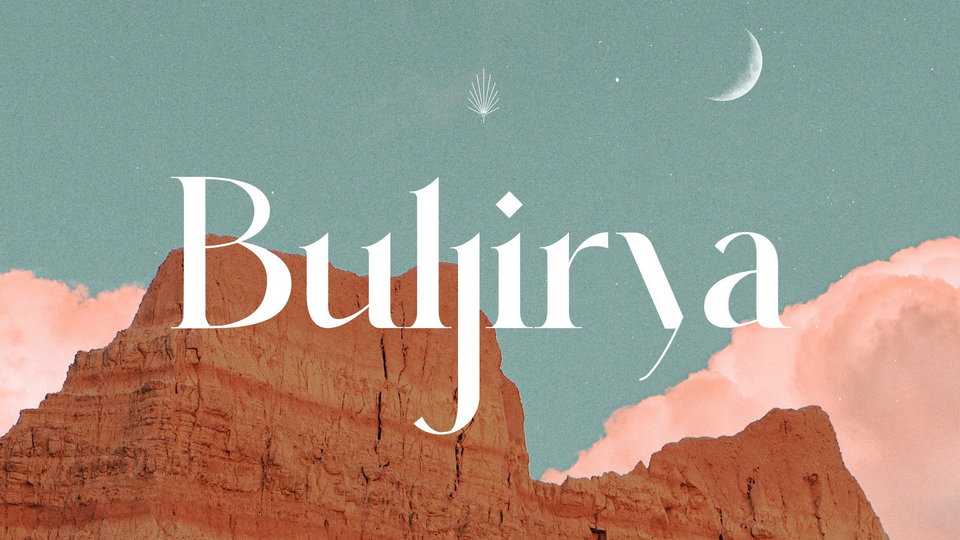
Download Buljirya font, a modern serif typeface inspired by dream and pastel color combined with elegance. Buljirya is perfect for logo, product packaging, advertisement, social media post, fashion brand, magazine headers and more.